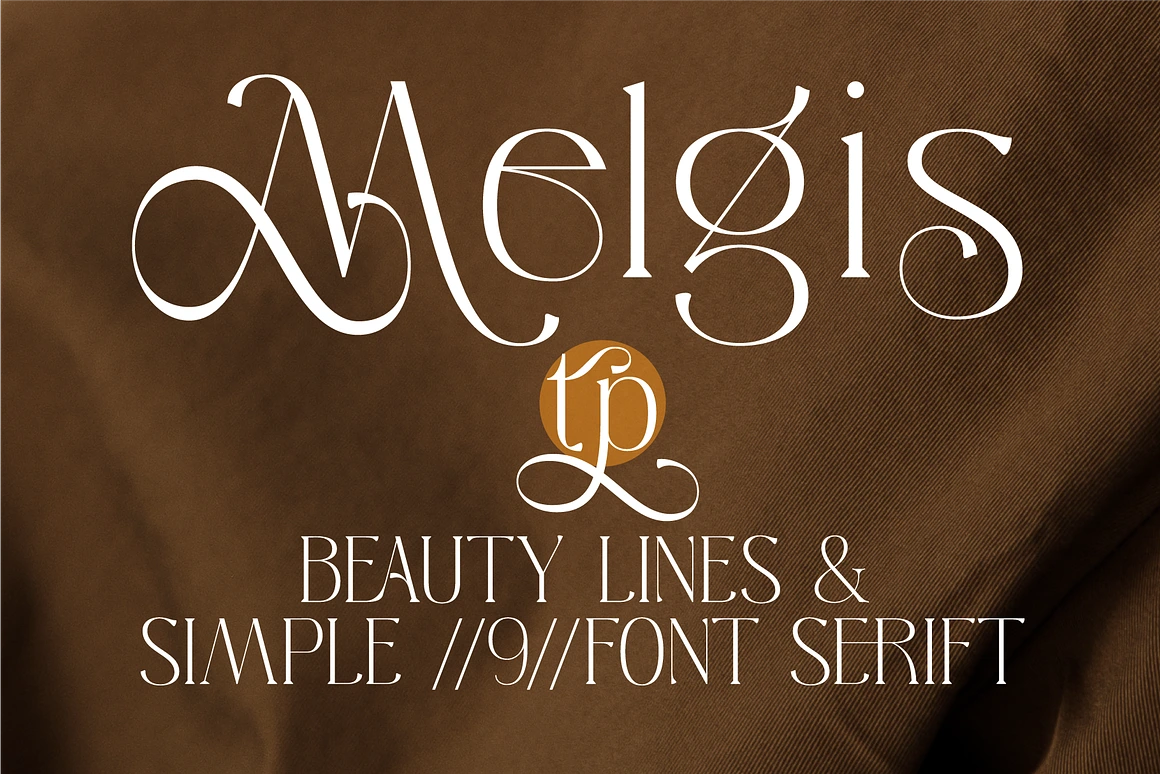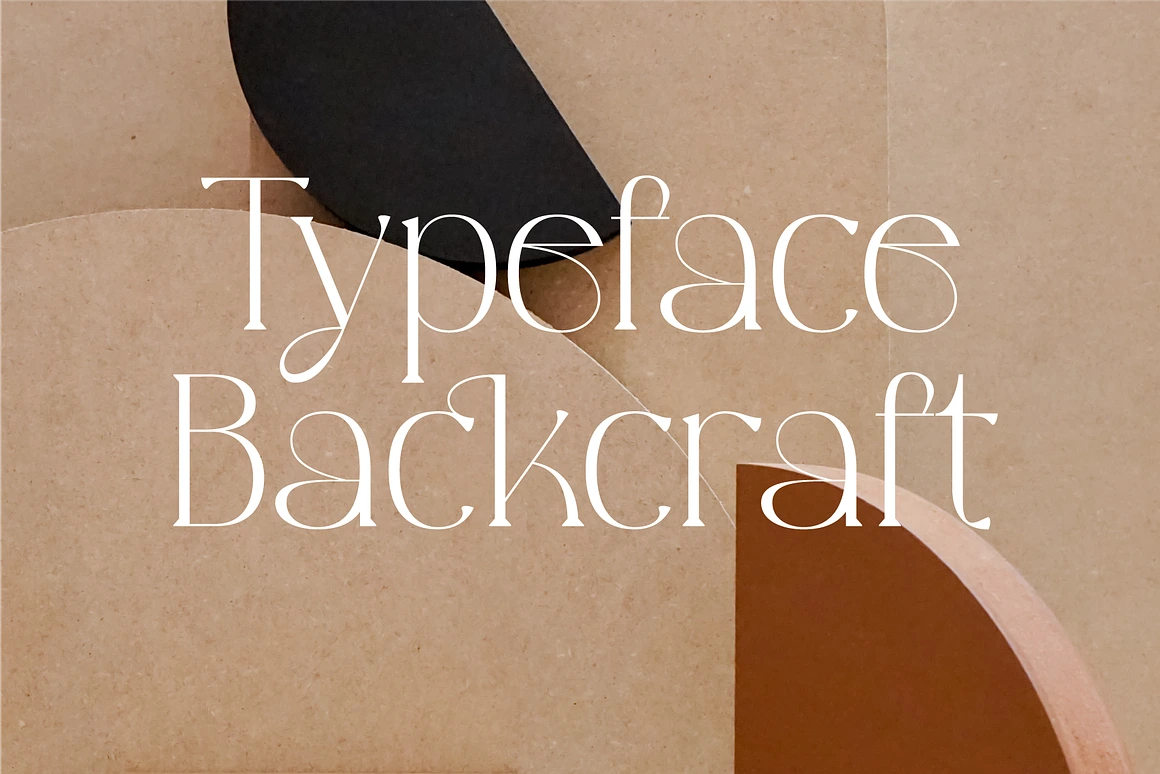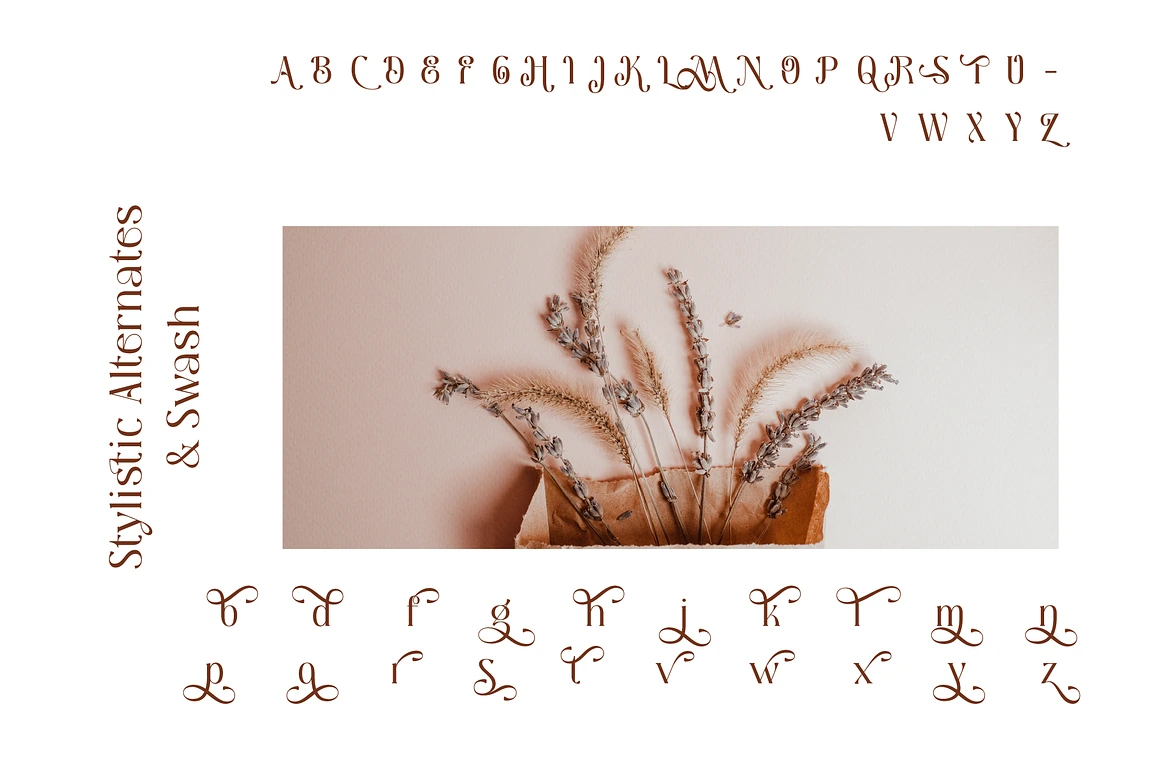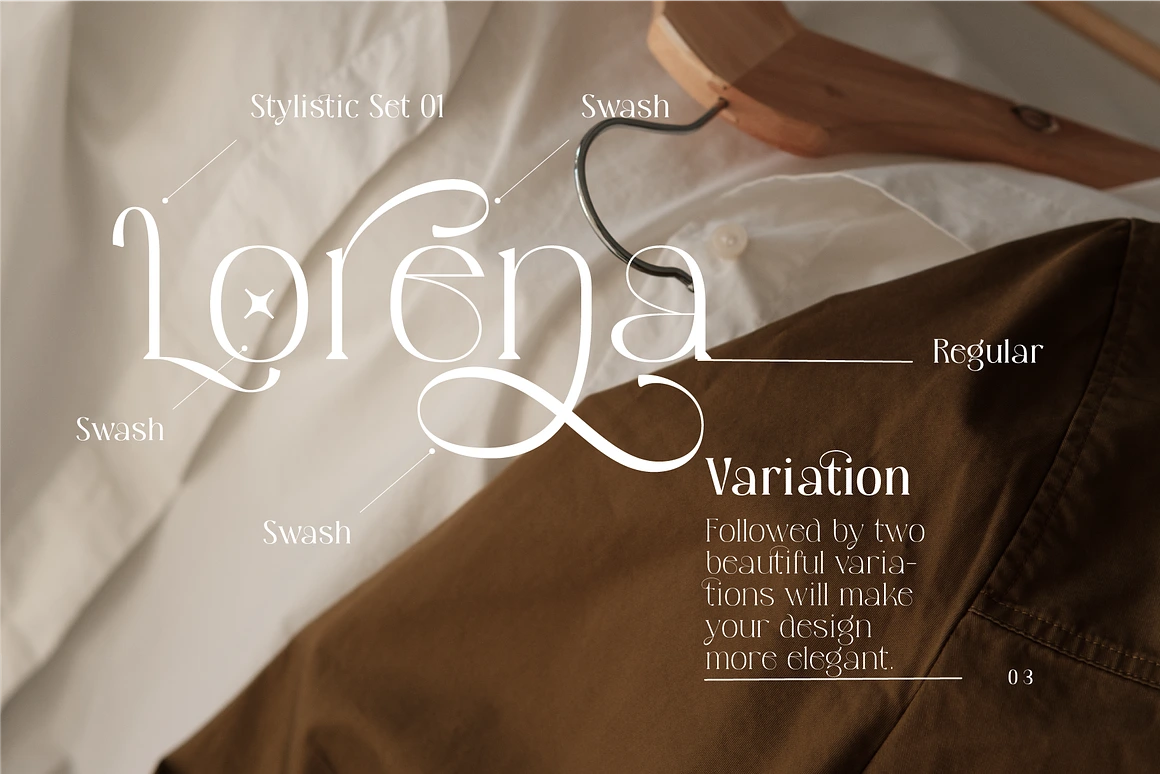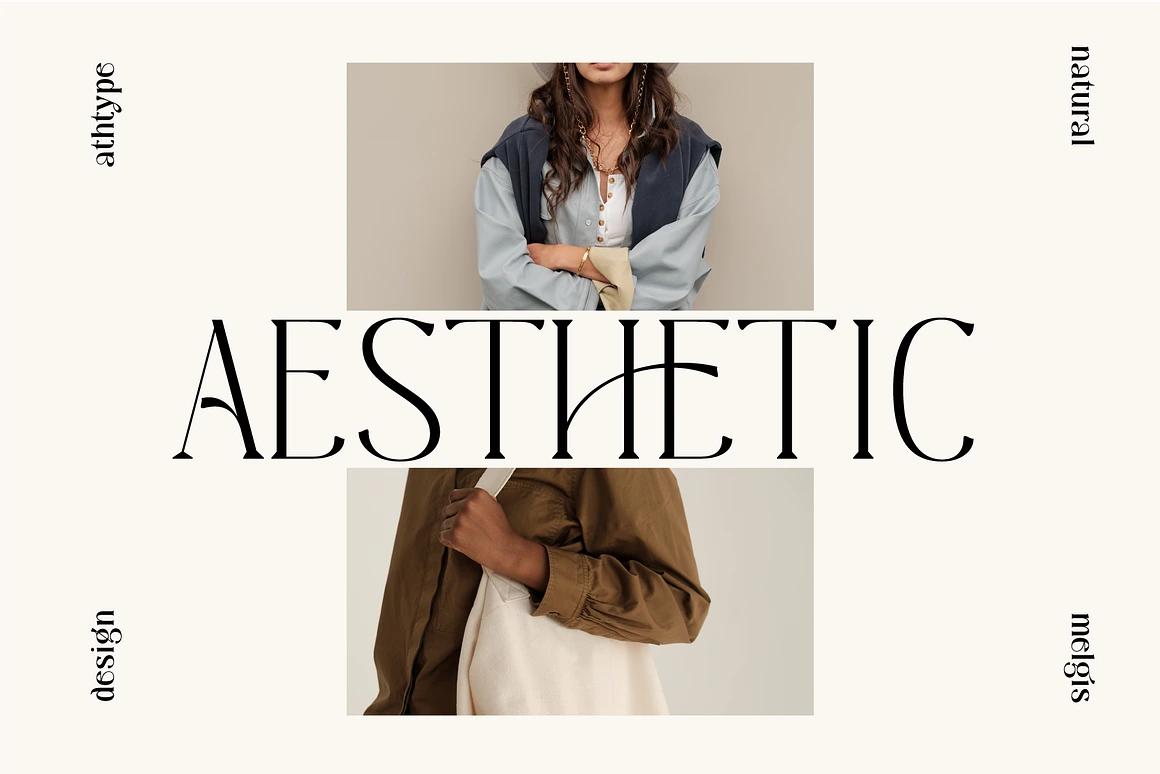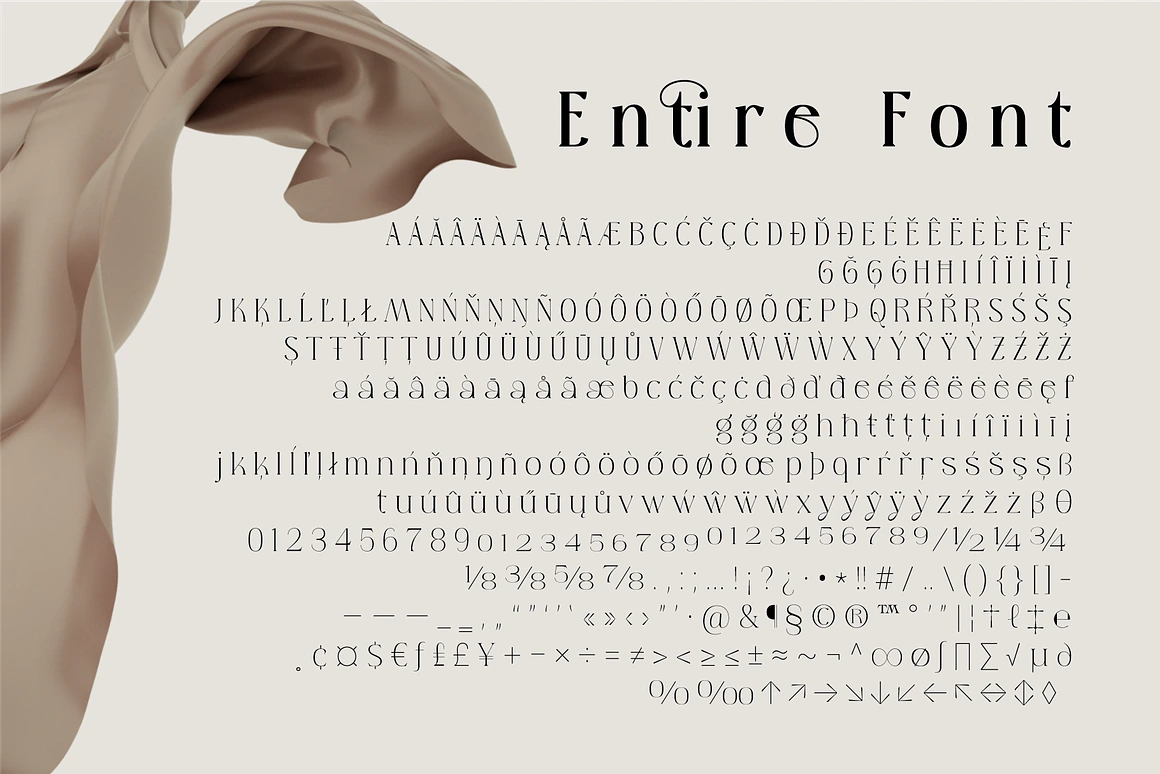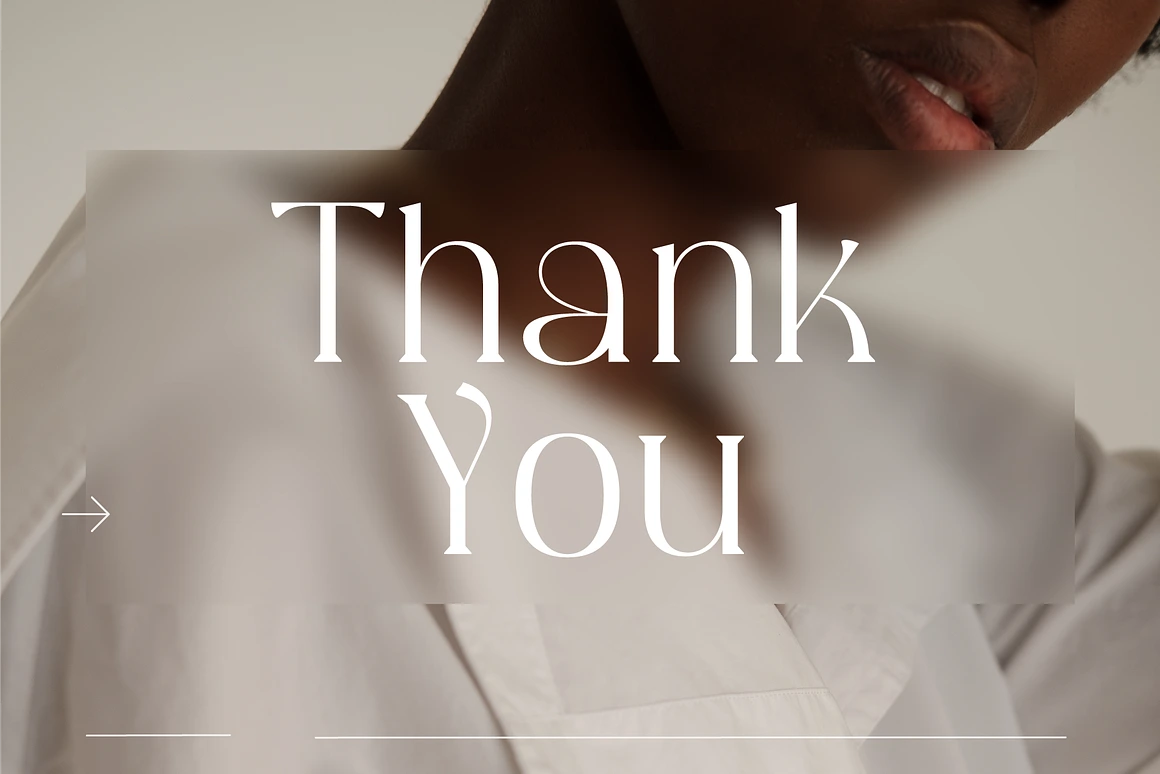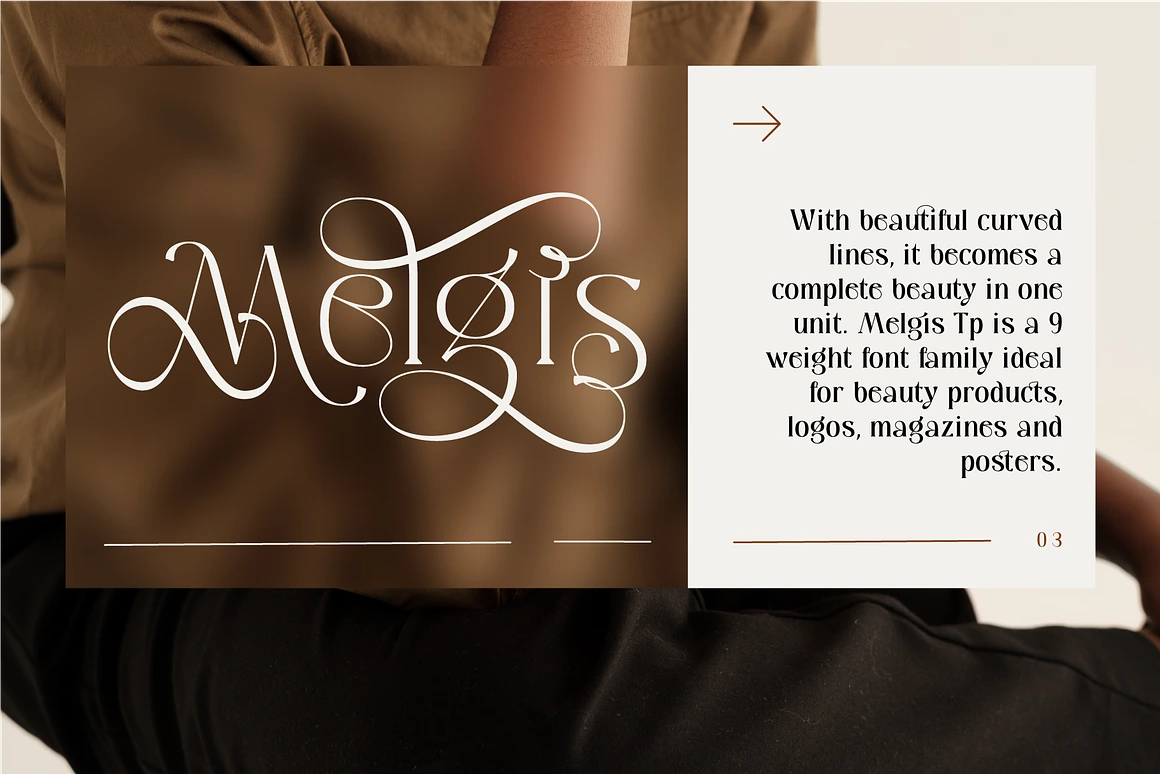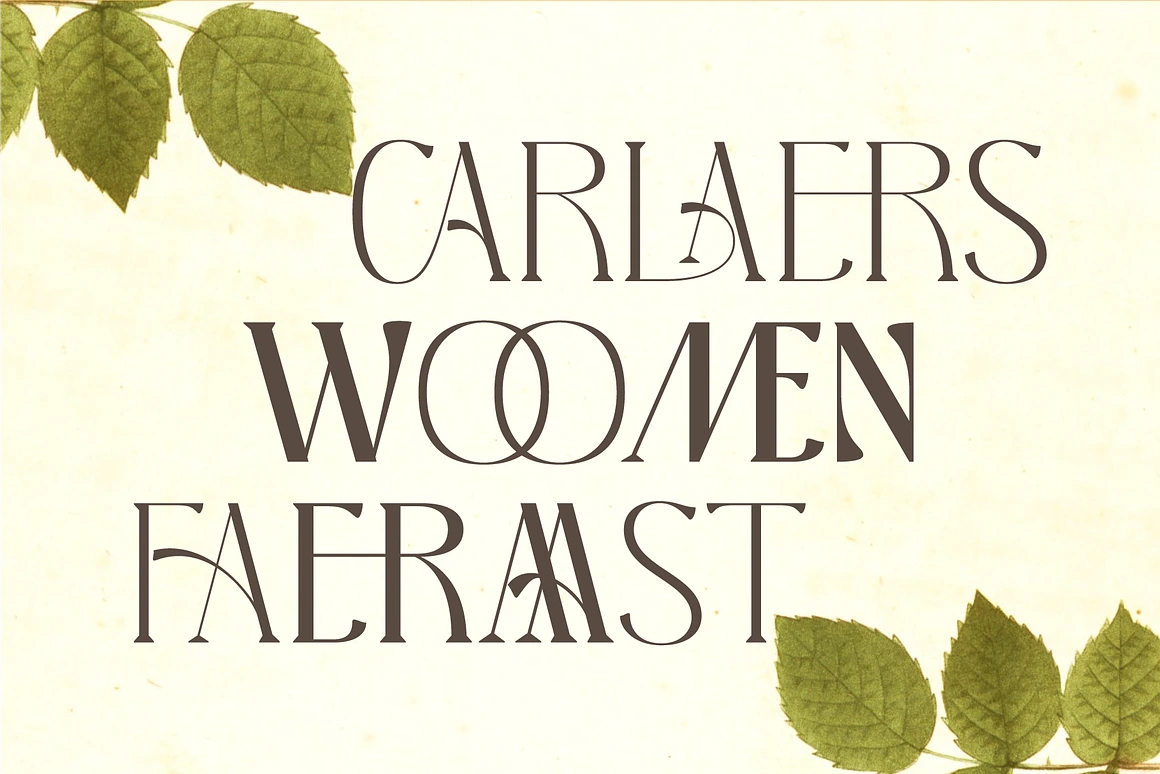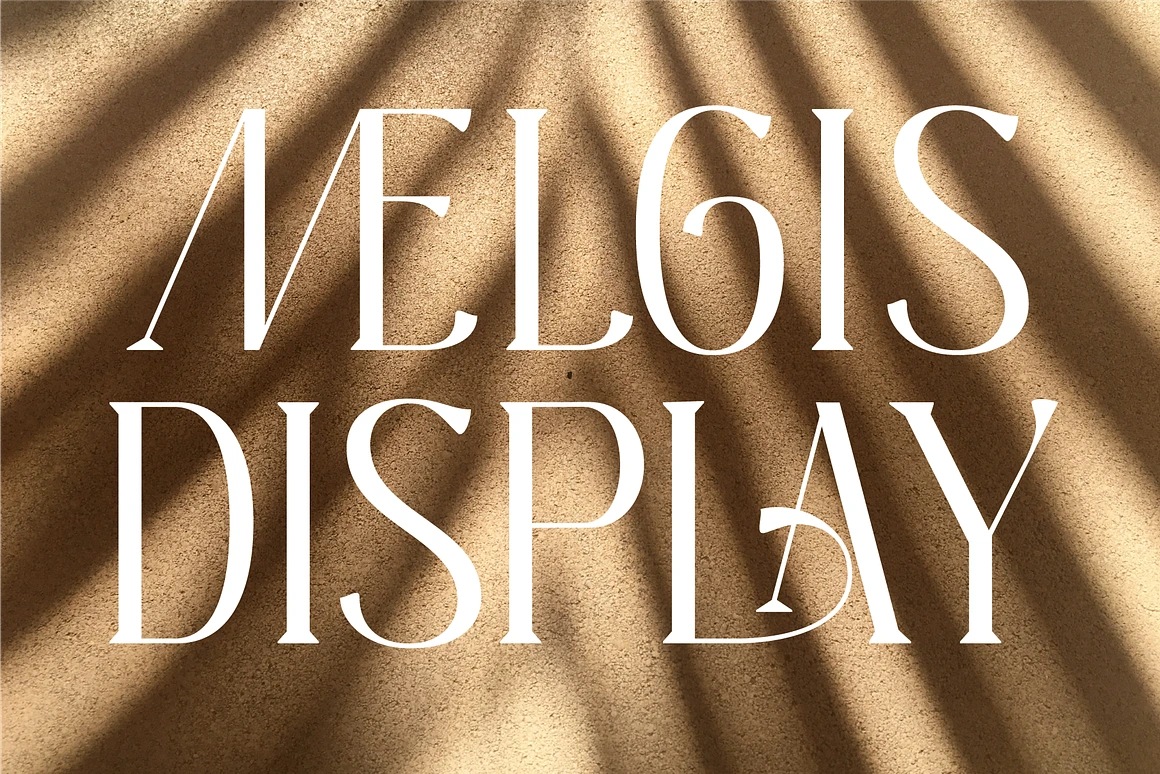
Melgis Tp - Beauty Serif Font
Melgis Tp Complete Family
Melgis Tp – Beauty Serif Font by AuthenType
Melgis Tp is a sophisticated beauty serif font family with 9 elegant font weights from Thin to Black. Designed for luxury branding, magazines, editorials, and beauty product packaging, this font is perfect for creating a timeless and professional look.
✔ 9 font weights: Thin, Extra Light, Light, Regular, Medium, Semi Bold, Bold, Extra Bold, Black
✔ Supports OpenType Features (Ligatures, Stylistic Alternates)
Perfect for beauty branding & cosmetics packaging
Ideal for editorial design, magazine layouts, and posters
Works great for elegant logo design and fashion projects